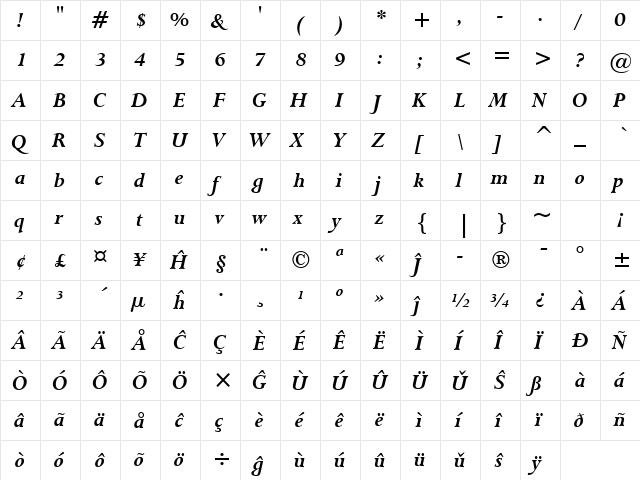
Lapidary333 BT Eo Bold Italic Font Preview
Design Context for Lapidary333 BT Eo Typeface
Lapidary333 BT Eo offers clean, dependable letterforms without strong stylistic allegiance, making it a practical choice for designers who need flexibility. The slanted form adds forward momentum and visual energy. Its bold stroke weight gives it real presence on the page.
Pro Tip: Try Lapidary333 BT Eo for annotation and caption copy alongside an upright companion — the contrast in angle creates a dynamic but ordered typographic system.